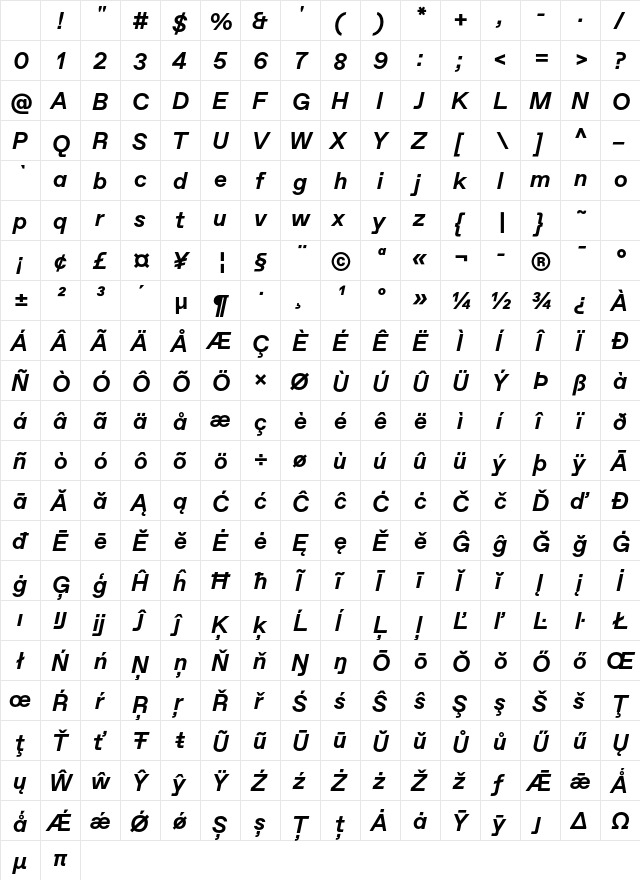
Complete Favorit Std Bold Italic glyph index. Displaying only characters natively supported by Favorit Std Bold Italic font.
Favorit Std is a composed and adaptable typeface that performs quietly and consistently across a wide range of design contexts. The slanted form adds forward momentum and visual energy. Its bold stroke weight gives it real presence on the page.
Pro Tip: Use Favorit Std for emphasis, pull quotes, and subheadings where its slanted energy can add rhythm to the layout.